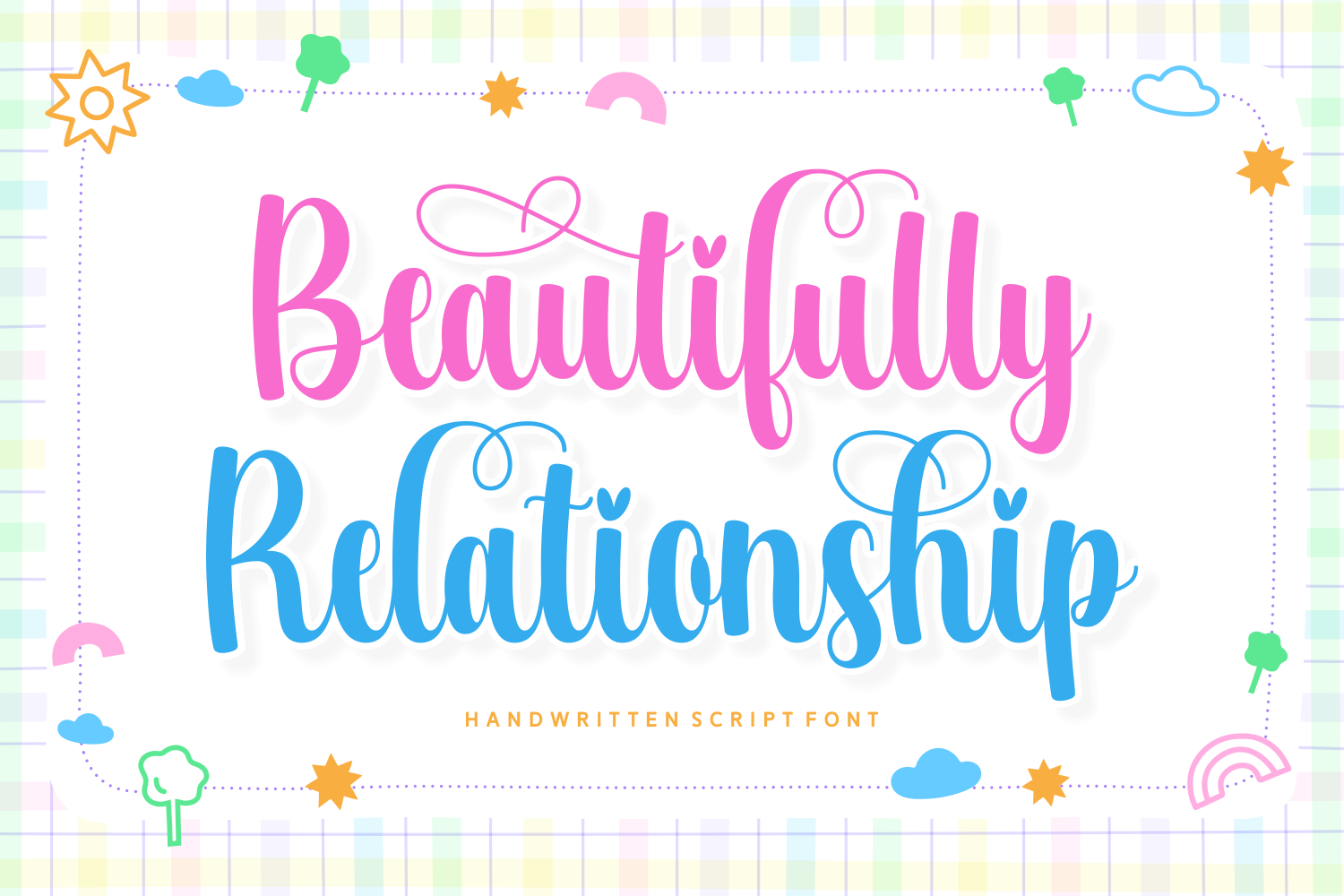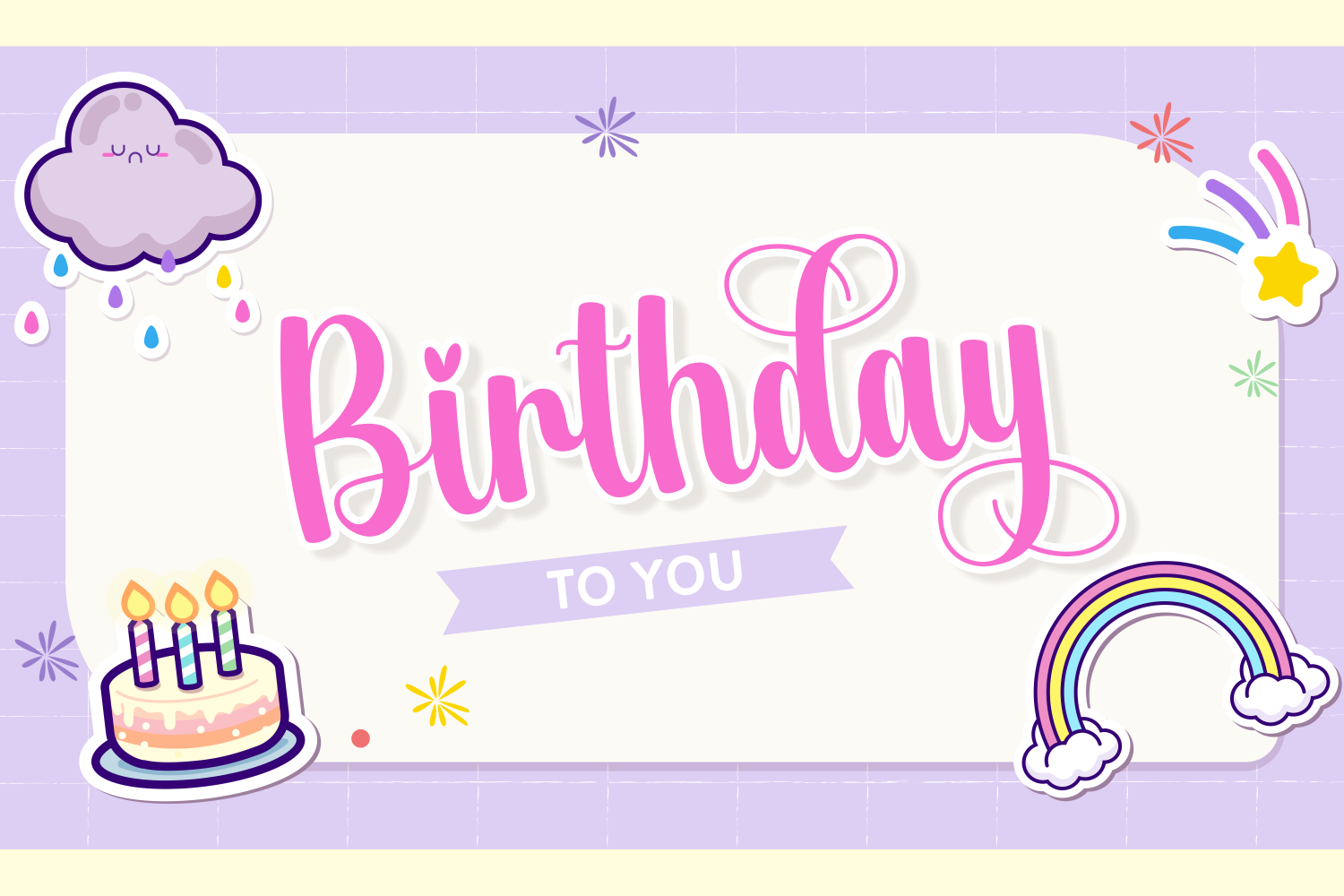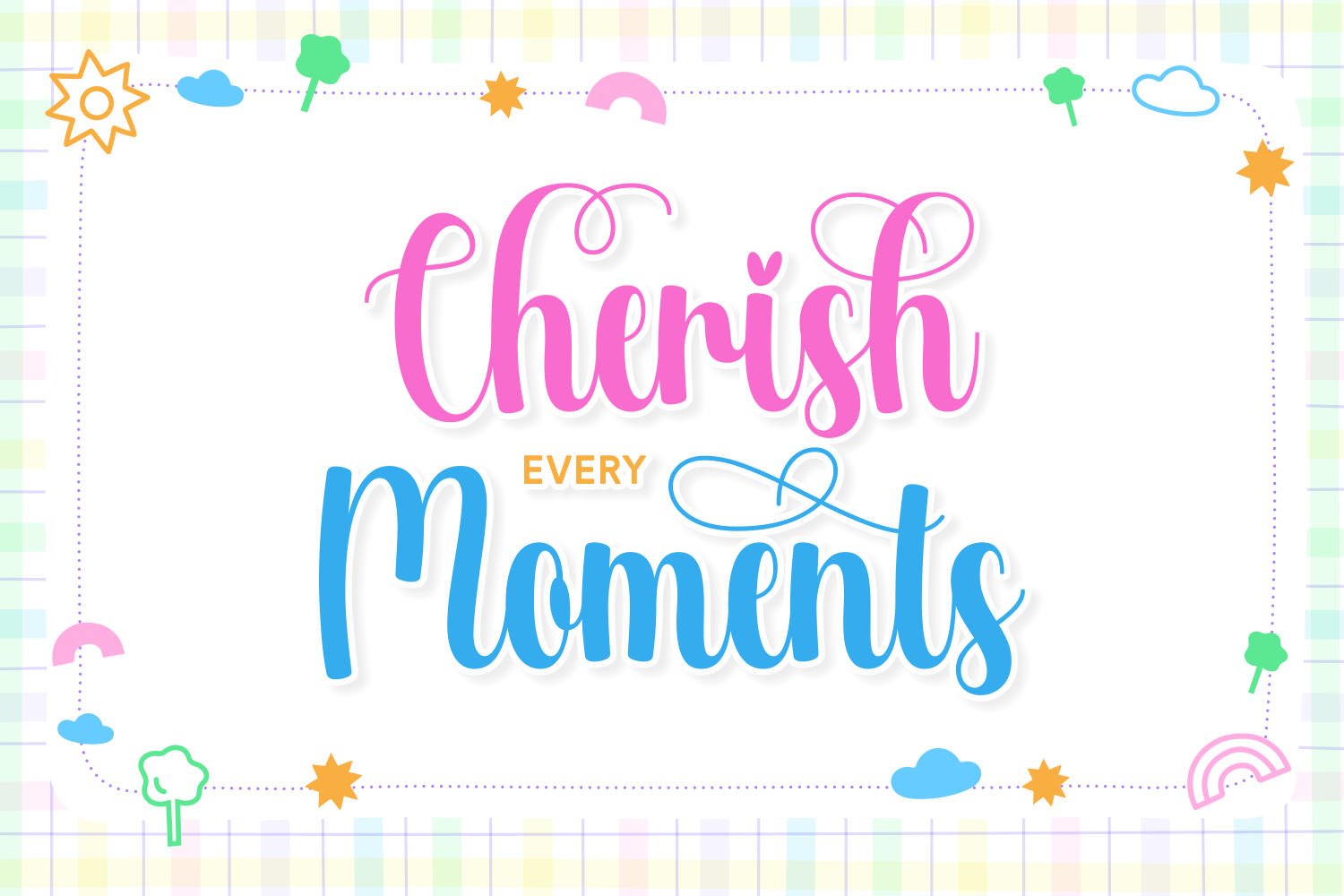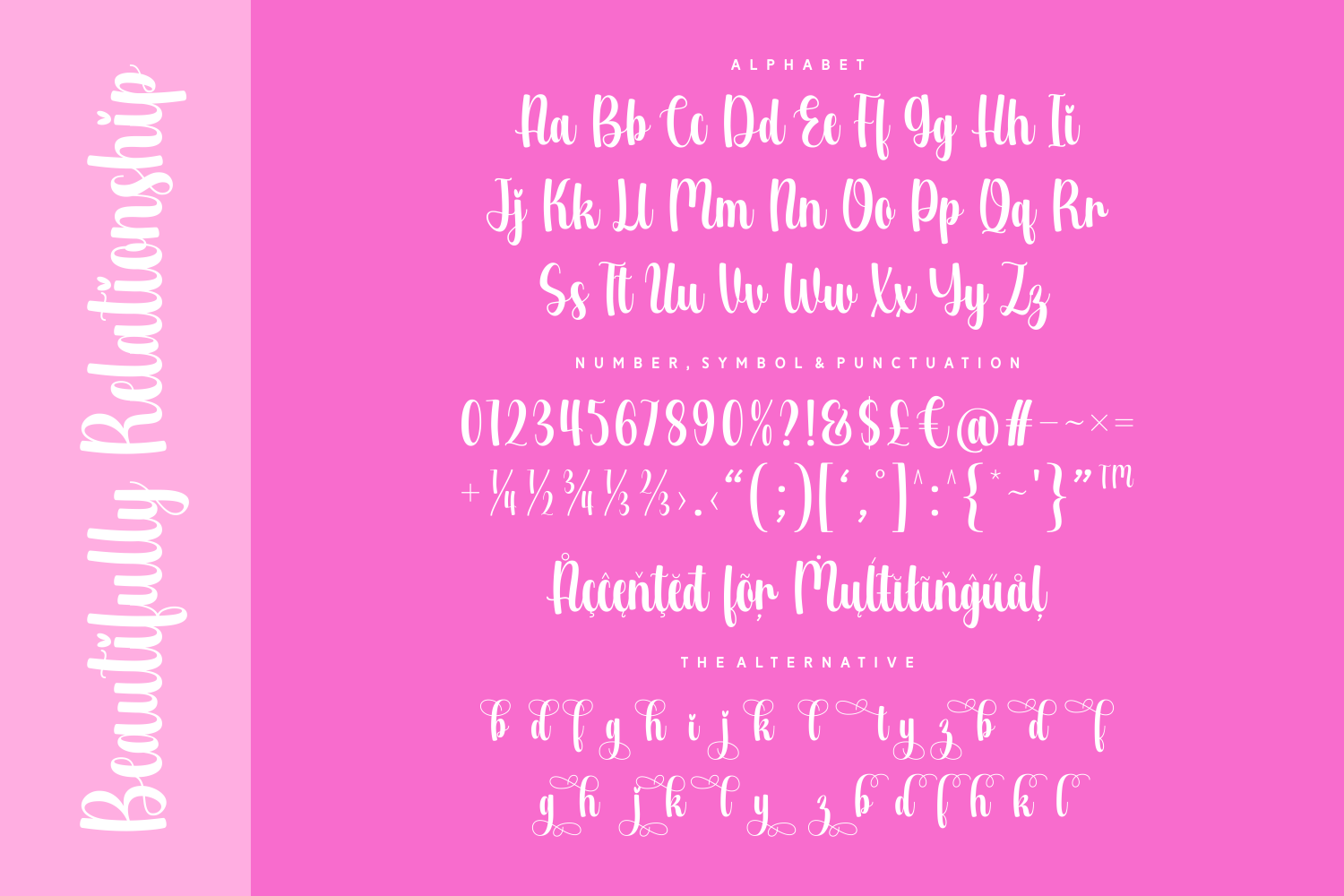
Beautifully Relationship
Beautifully Relationship is a charming script font brimming with sweetness and warmth. With heart-shaped details and playful swashes, it's ideal for love-themed designs, children's projects, stationery, and branding that calls for a joyful, affectionate touch. This font adds a sense of cheer to any creative work.